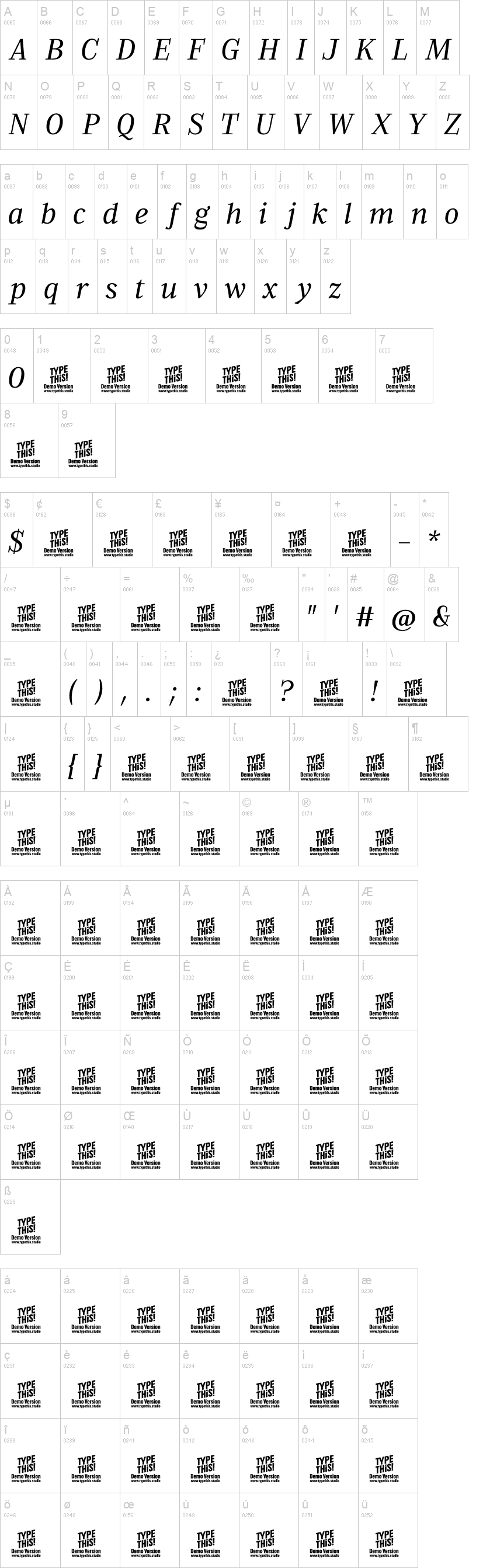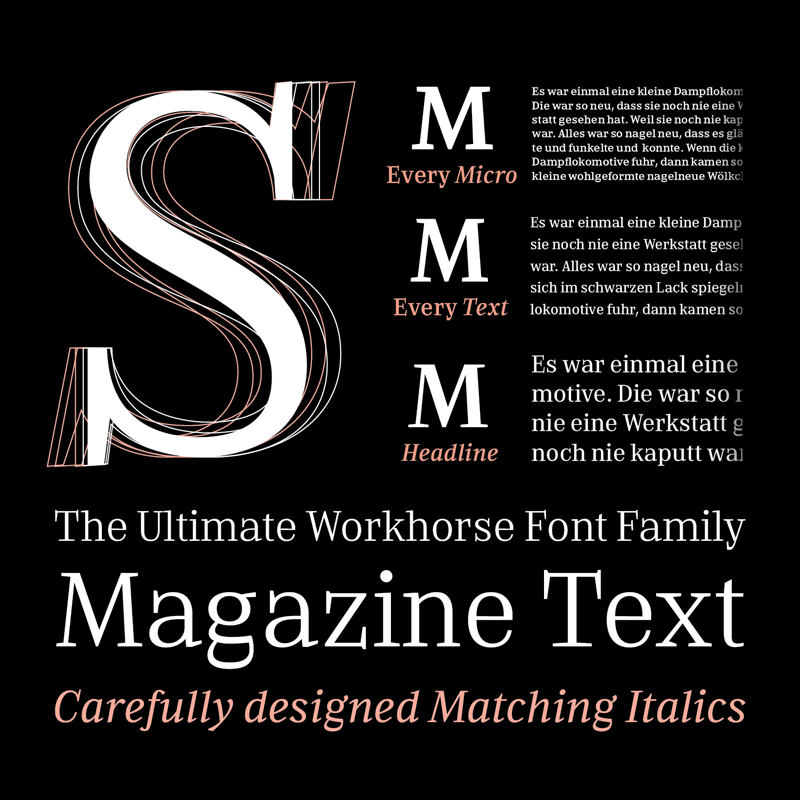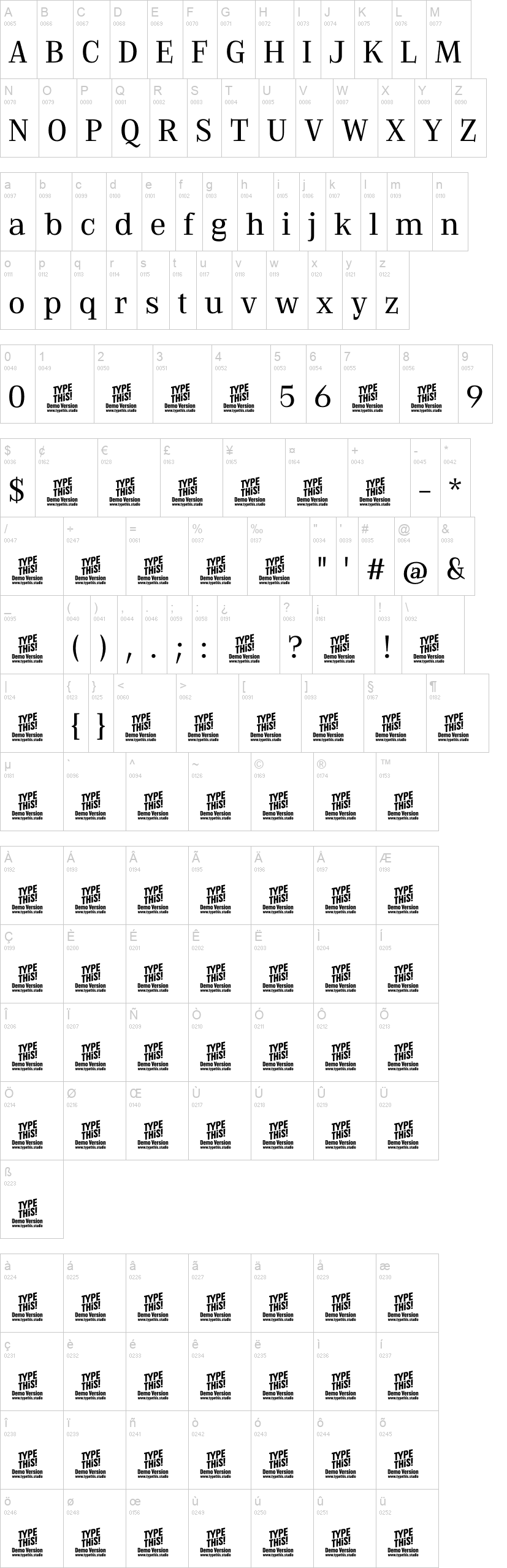
EVERYHEADLINE-Regular.otfEVERYHEADLINE-Medium.otfEVERYHEADLINE-Bold.otfEVERYHEADLINE-ThinItalic.otfEVERYHEADLINE-RegularItalic.otfEVERYHEADLINE-MediumItalic.otfEVERYHEADLINE-BoldItalic.otfNote of the author'Every Headline' is a new strong and elegant serif font, that will bring an outstanding character to your project.